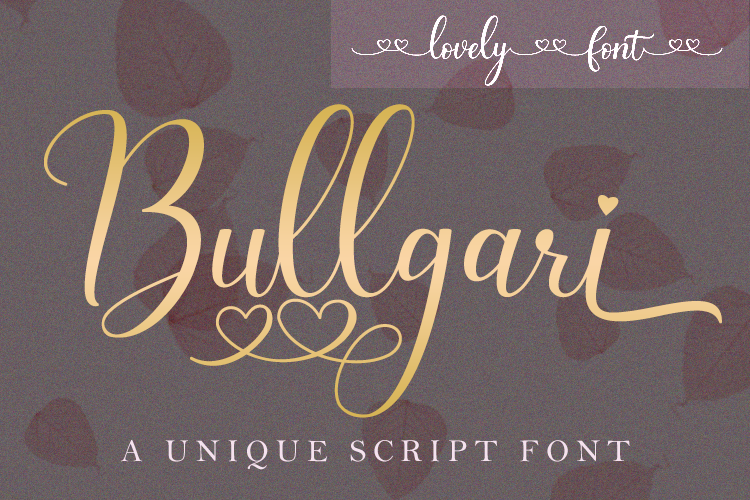
Font name: | Bullgari |
Author: | Muhammad Yoni |
Bullgari Calligraphy Font is an elegant script font with a contemporary atmosphere and impeccable form, inspired by timeless classic calligraphy. Not too thin and not too thick, balanced and varied, Bullgari Calligraphy font was designed to enhance the beauty of your projects. Note of the author ENGLISH 1. This Font License is (PERSONAL USE ONLY) Which means you can only use this font for personal purposes that are not commercial (published) Be it To Generate Profits / Profits, Both Material And Non-Material. 2. (PROHIBITED HARD) (DUPLICATING) and Distributing and Using This Font For Commercial Purposes. Be it for Advertising, TV, Film, Video, Motion Graphic, YouTube, or for LOGO & Product Packaging (PHYSICAL OR NON-PHYSICAL (DIGITAL) 3. DOUBLE (PLAGIATE / COPY PASTE) and DISTRIBUTE / USE THESE Fonts For Commercial Use Whatever type and shape, NO LICENSES or WITHOUT BUYING LICENSE OF MY FIRST LETS FROM ME as CREATOR or HOLDER OF FONT COPYRIGHT, Will Be Used for Extended License Fees with a PRICE 100 times the Price of a STANDARD License, For LICENSE INFORMATION what you will need, please contact me at: Email: (yontypestudioco@gmail.com) this my shop : https://fontbundles.net/yontypestudioco https://www.creativefabrica.com/product/bullgari/ref/235915/ |